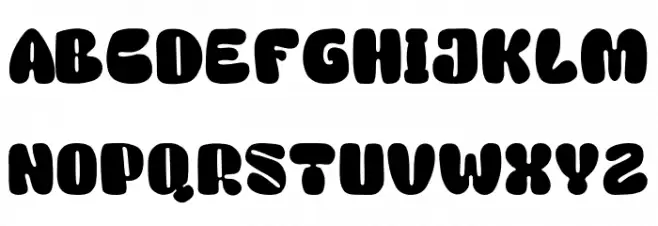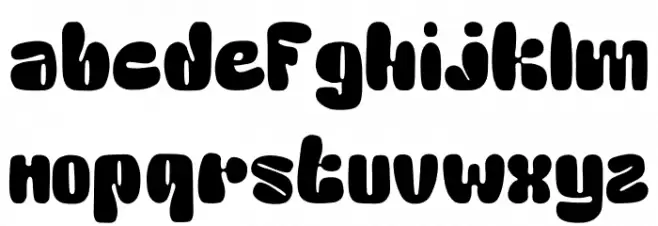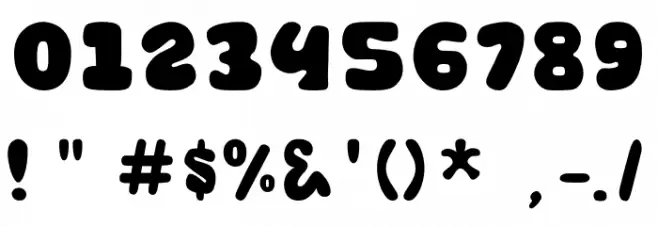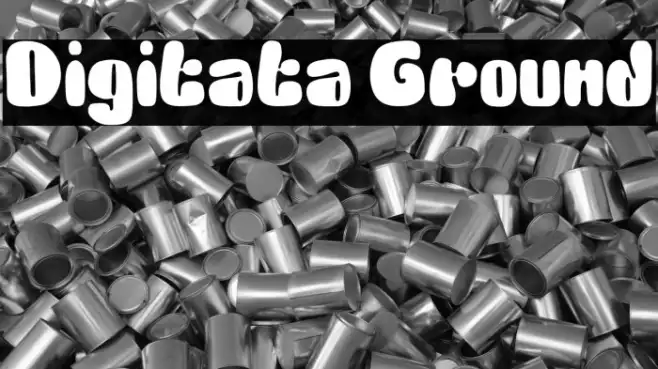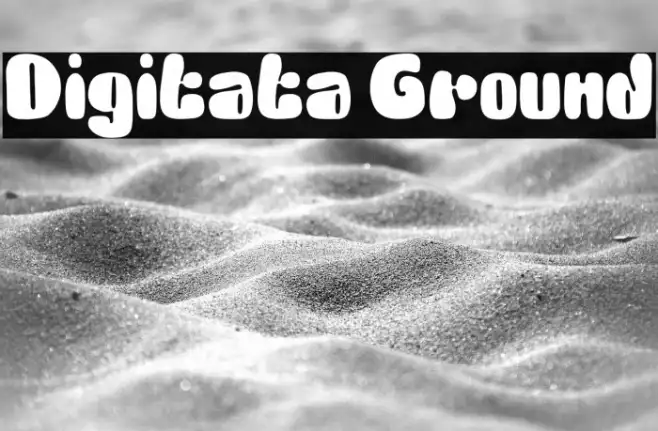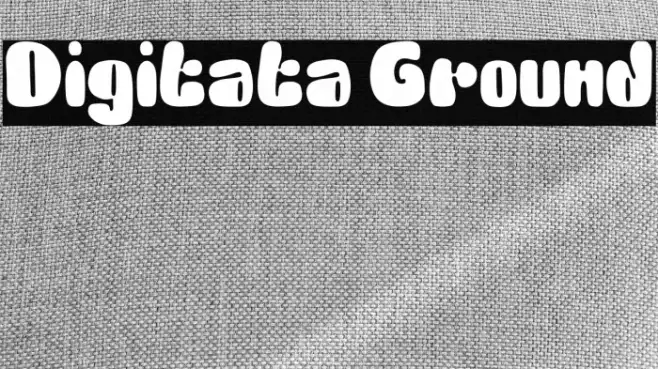
Digitata Ground Font
Digitata Ground Description
This font features a bold and playful design with rounded edges and a bubbly appearance. The characters are thick and substantial, giving a sense of fun and approachability. The uppercase and lowercase letters maintain a consistent style, with a slight variation in size and shape that adds to the font's charm. The numbers and special characters follow the same design principles, ensuring uniformity across all elements. This font's unique style makes it stand out, making it suitable for creative and informal projects.
A bold, playful font with rounded edges and a bubbly appearance.
- Font: Digitata Ground
- Proposed Projects: Ideal for children's books, playful branding, posters, and creative advertisements.
- Overall Style: Playful, Fun, Creative